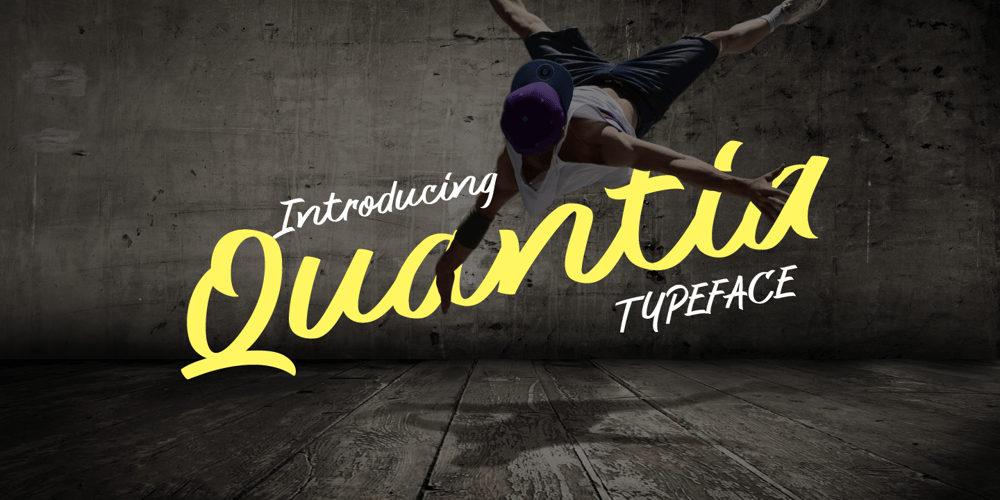
Quantia
Quantia font
Quantia Font Family was designed by Muhammad Hastian and published by Hazztype. Quantia contains 1 styles and family package options. Introducing Quantia casual script font, a playful Blend of Elegance and CharmQuantia is a delightful typeface that effortlessly captures the essence of handwritten script with a casual and carefree touch. Perfect for adding a touch of whimsy and personality to your designs, this font exudes a relaxed and informal vibe that is sure to make your content stand out.With its flowing strokes and graceful curves, Quantia strikes a harmonious balance between elegance and approachability. Whether you’re designing invitations, greeting cards, or social media graphics, this font brings a touch of playfulness to any project, creating a warm and friendly atmosphere that resonates with your audience.It includes set of lowercases without connecting stroke. Be sure to turn on your OpenType features when type with Quantia.